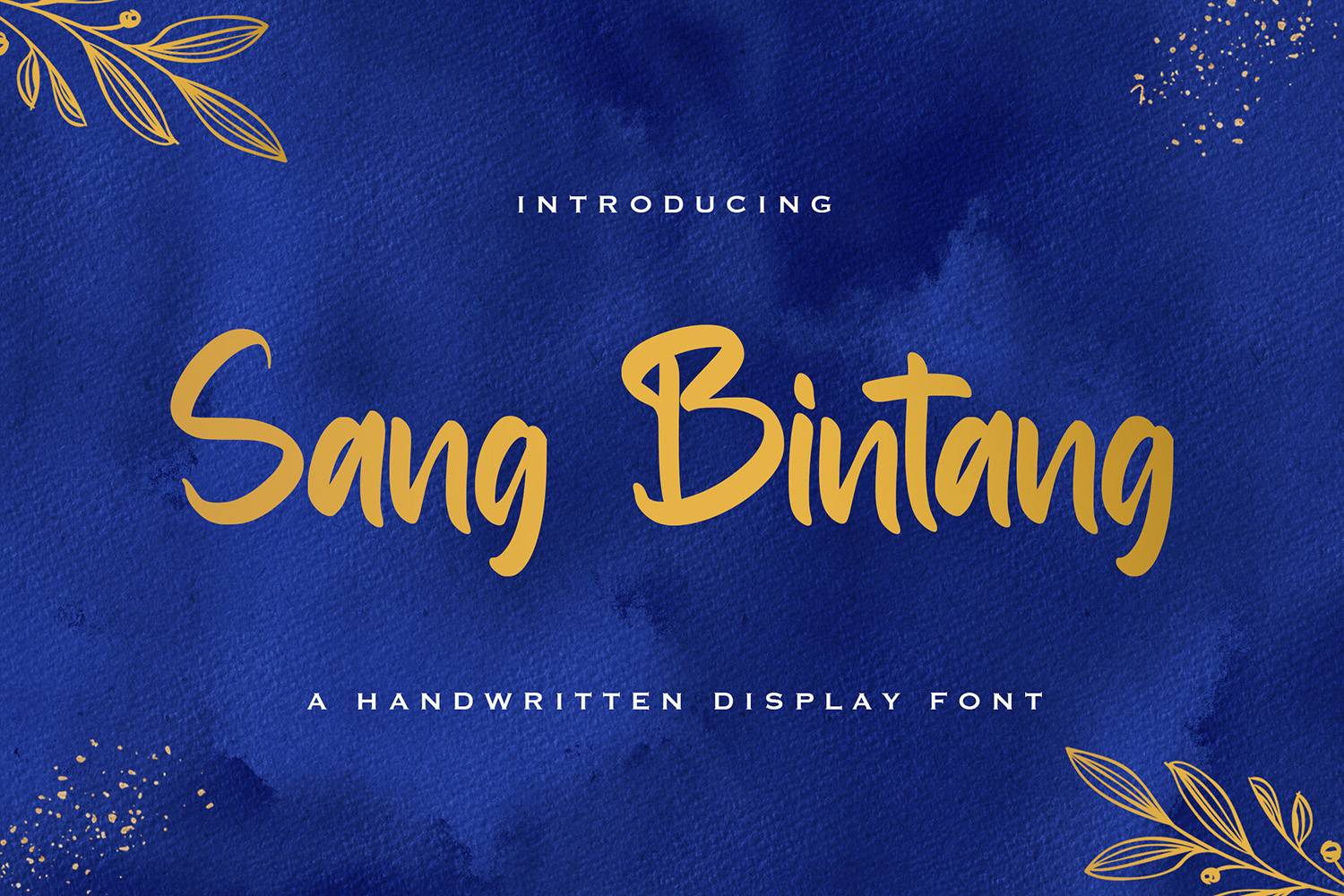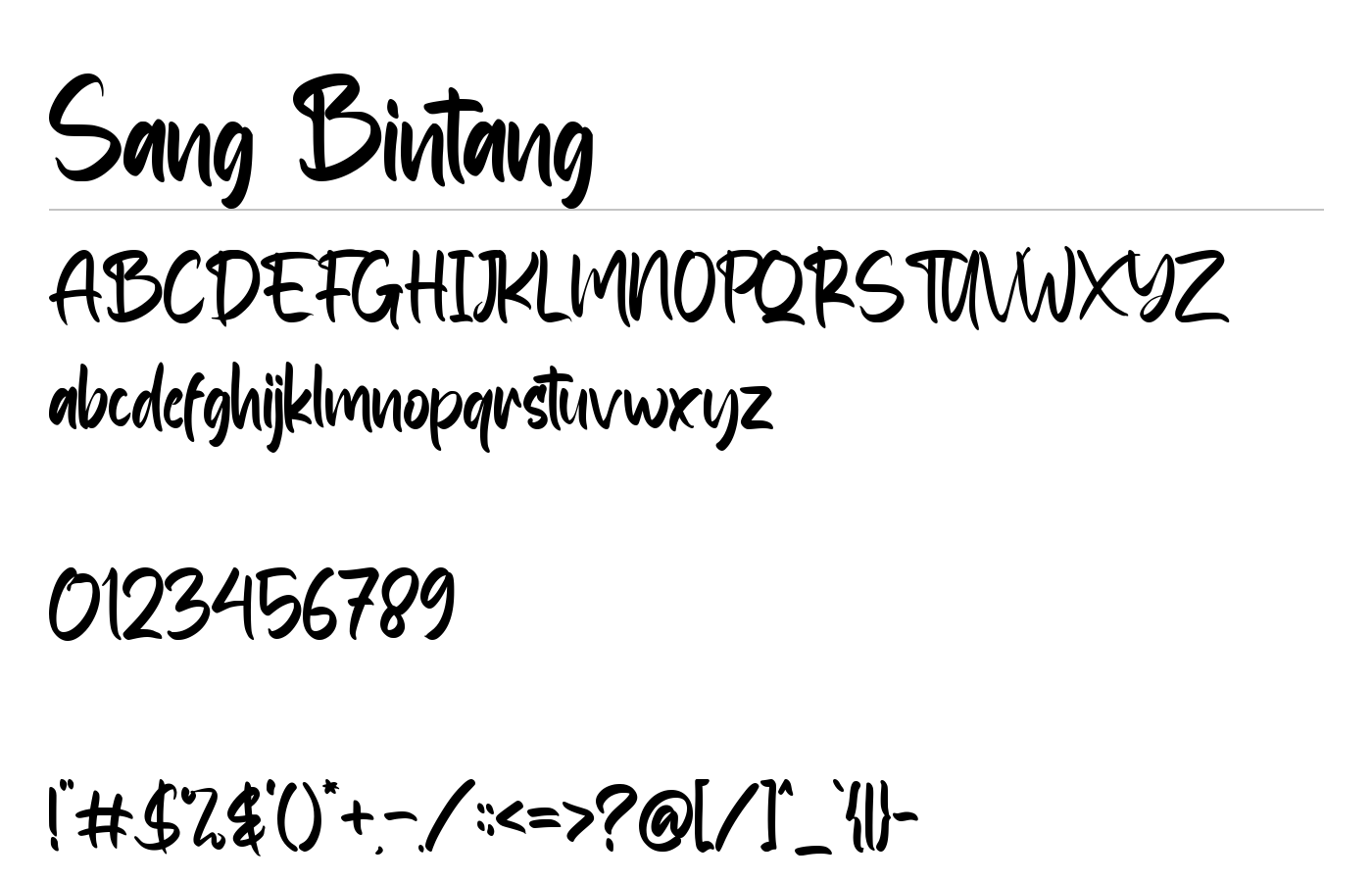
Sang Bintang is a lively handwritten font with a casual, brush-style feel that combines playful curves and energetic strokes. Its medium weight and slightly condensed letterforms create a friendly and approachable vibe, making it ideal for creative projects that want to convey warmth and personality. This font works wonderfully in branding, packaging, and headlines where an informal, inviting tone is desired.
Sang Bintang Font
About Sang Bintang Font